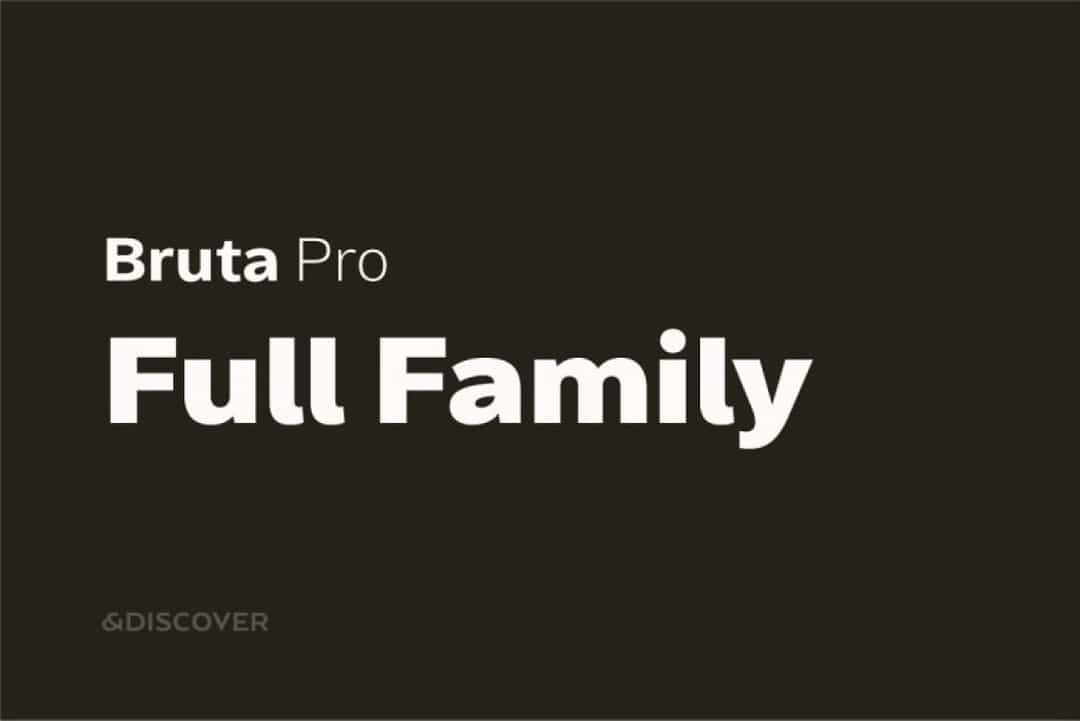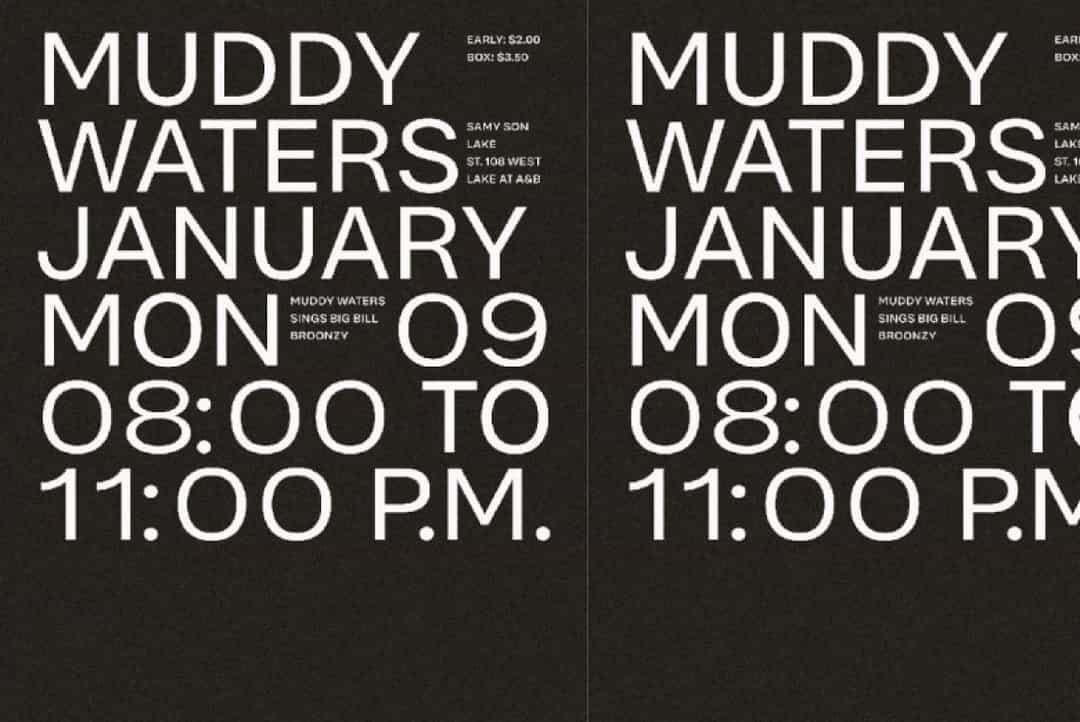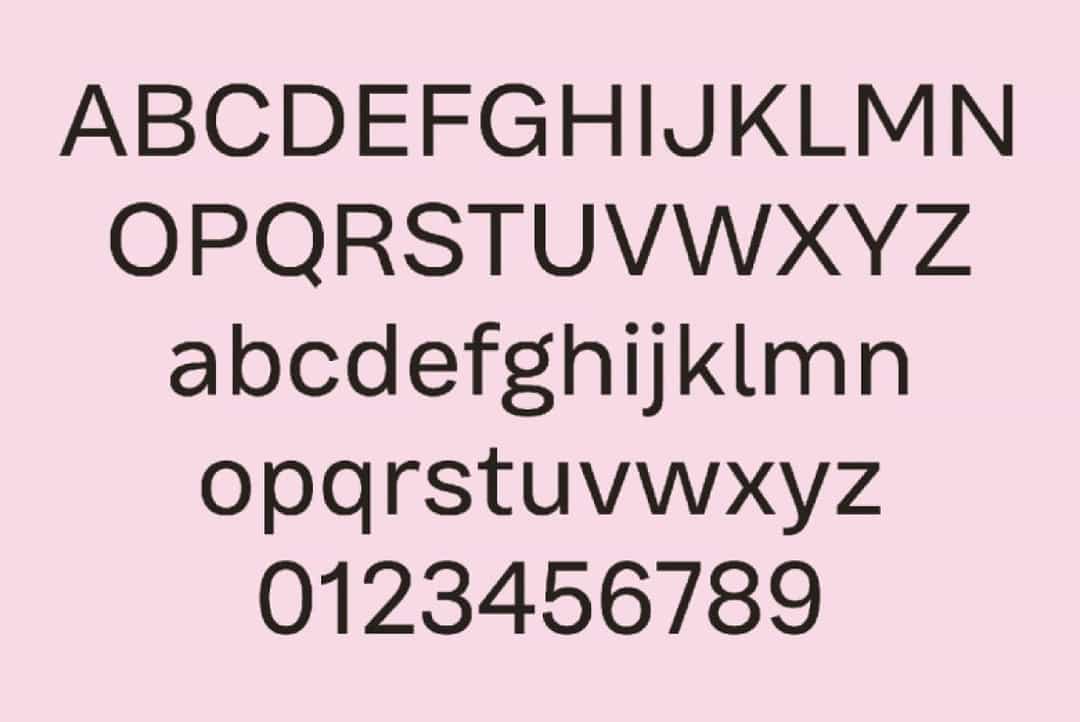
Bruta Pro Font Family is an elegant modern sans-serif grotesque typeface created for use across an array of applications. Drawing upon modernist principles in its modernist design, this font family seeks to provide you with a versatile solution in one package.